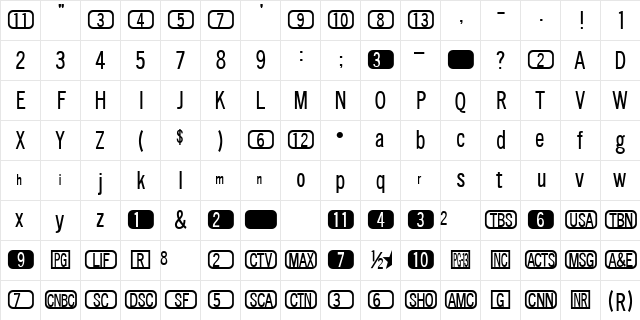
Channel Regular Font Preview
Channel Regular
Channel Regular Font Details
Design Context for Channel Typeface
Channel offers clean, dependable letterforms without strong stylistic allegiance, making it a practical choice for designers who need flexibility.